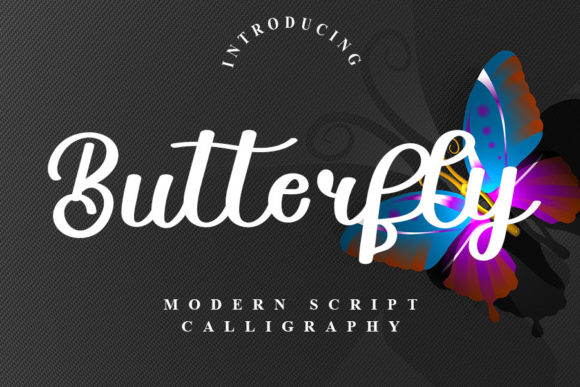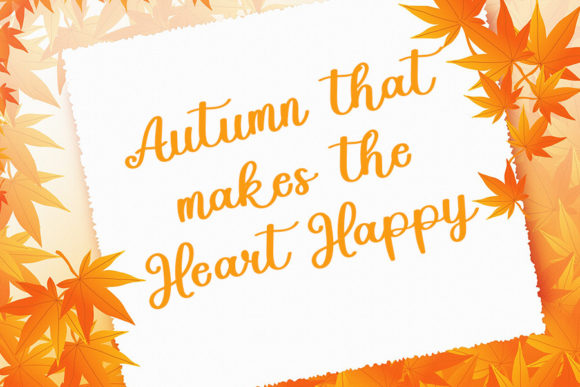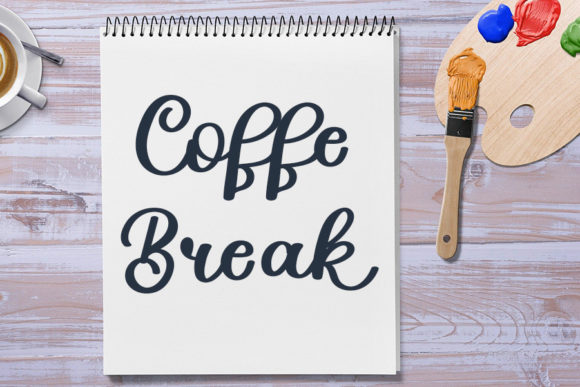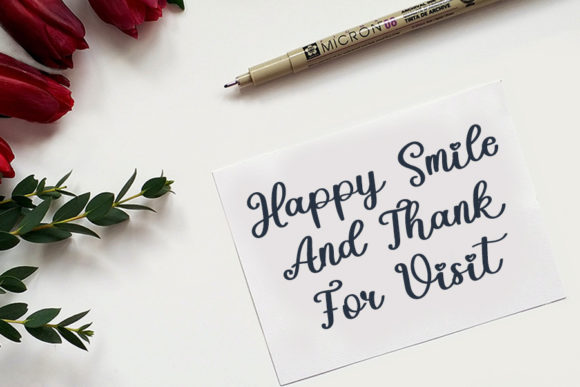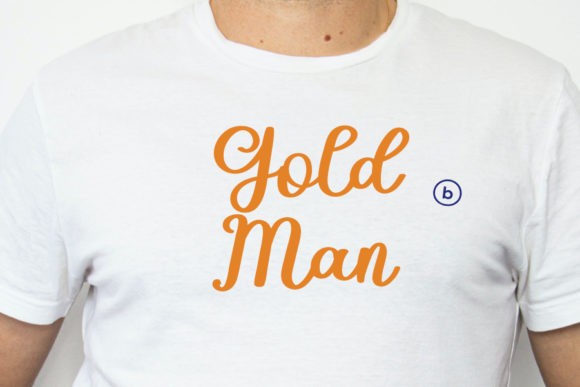
Butterfly is a charming and playful script font that adds a touch of whimsy and elegance to your creative projects. With its dancing characters and beautiful letterforms, it brings a sense of joy and liveliness to any design.
The graceful and playful curves of Butterfly font create a sense of movement and energy, making it a perfect choice for adding a lively and vibrant touch to your creations. Whether you’re designing invitations, greeting cards, logos, or any other project, Butterfly font will make them stand out with its unique charm.
The versatility of Butterfly font allows it to be used in a wide range of applications. Its charming and dynamic appearance makes it suitable for both digital and print media, ensuring that your designs catch attention and evoke positive emotions.
Whether you’re aiming for a fun and whimsical look or a romantic and feminine design, Butterfly font adapts effortlessly to your creative vision. Its flowing and playful letterforms give it a cheerful and delightful personality that is sure to capture hearts.
The charming nature of Butterfly font makes it a wonderful companion to other design elements. It can be paired with bold or decorative fonts to create contrast and visual interest, or used on its own to create a delightful and enchanting composition.
When you incorporate Butterfly font into your creative ideas, you’ll notice how it brings a sense of joy and playfulness to your designs. Its dancing characters and charming letterforms create a visually captivating arrangement that is both eye-catching and delightful.
Whether you’re designing for children, creating a whimsical brand identity, or crafting a playful message, Butterfly font will infuse your designs with a sense of wonder and delight.
Embrace the enchanting and lively spirit of Butterfly font, and let it elevate your creative ideas with its charming and playful nature. Experience the magic of designing captivating and memorable designs that truly stand out with this delightful script font.